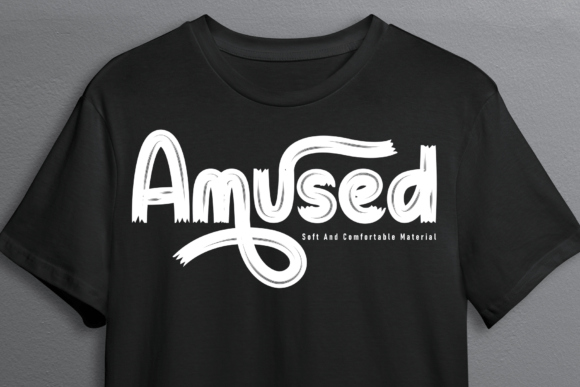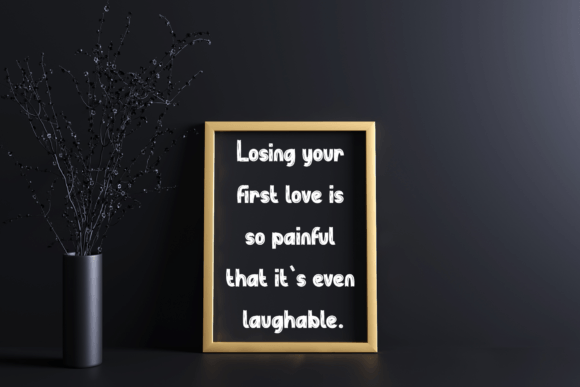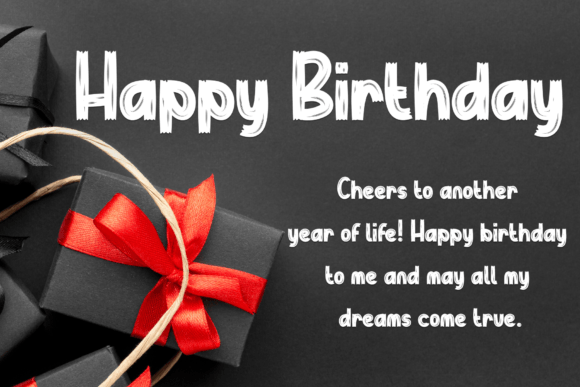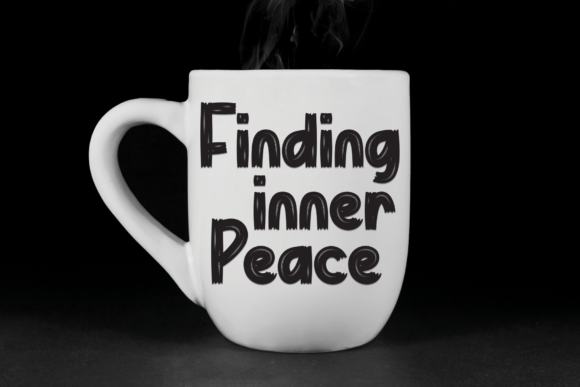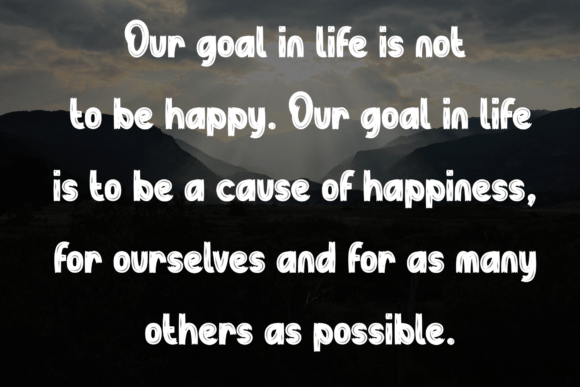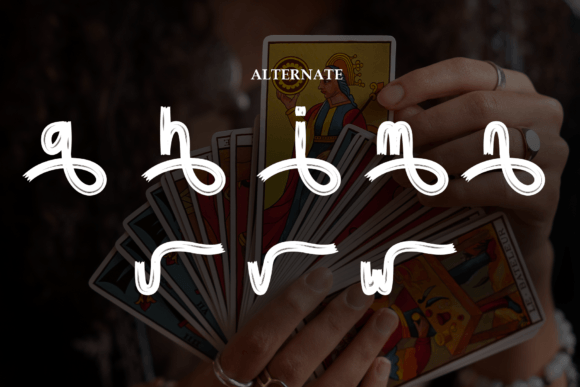
Introduction to Queencard Font
Queencard is a lovely and timeless handwritten font.
Key Features of Queencard Font
Why Choose Queencard Font?
Queencard Font offers exceptional quality and versatility, making it a valuable addition to your design toolkit. Whether you’re creating for personal projects or commercial use, Queencard Font delivers professional results.